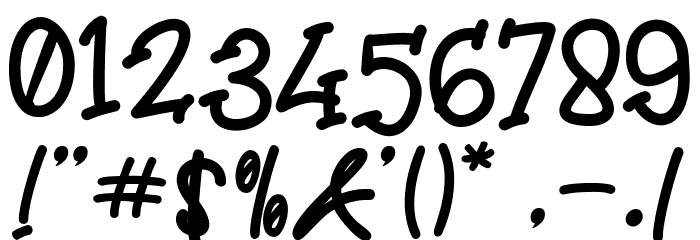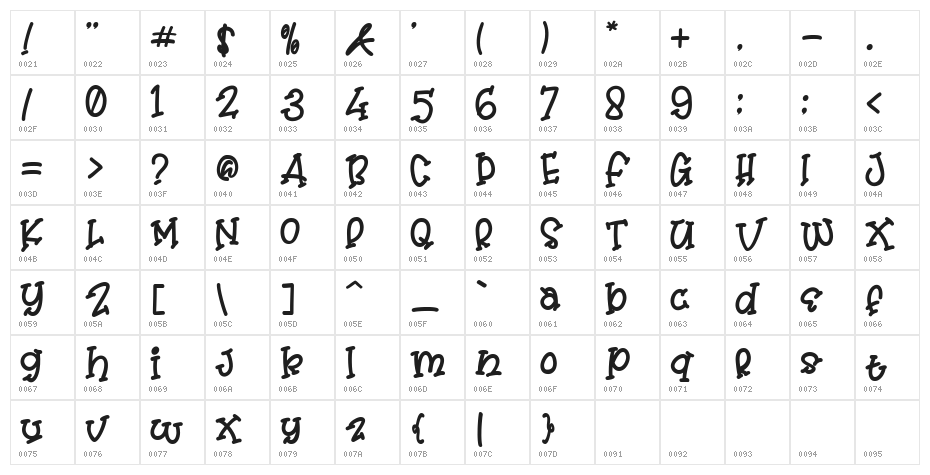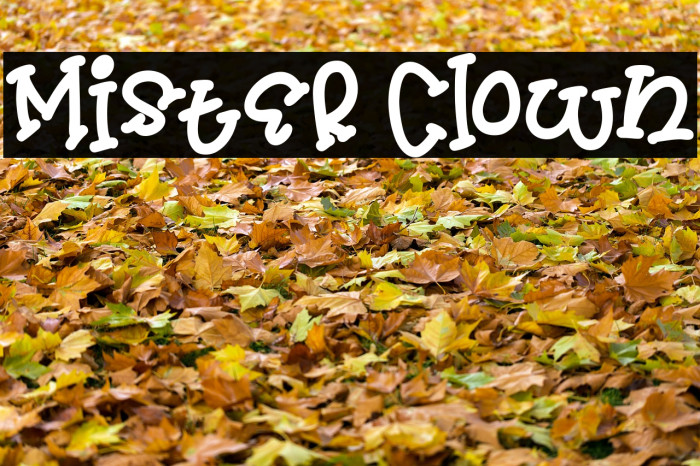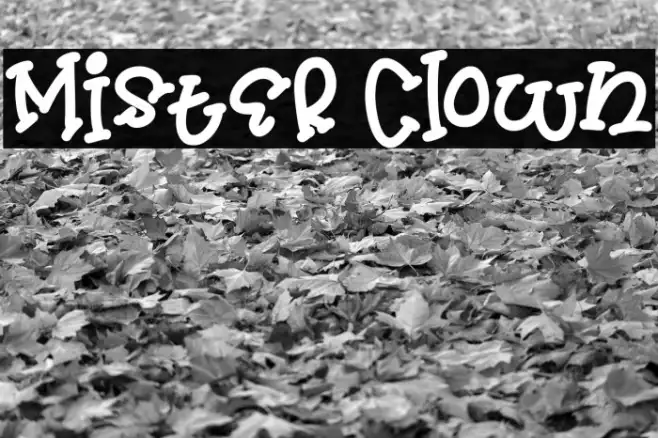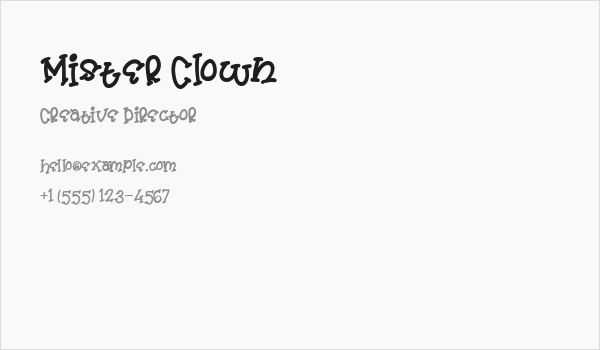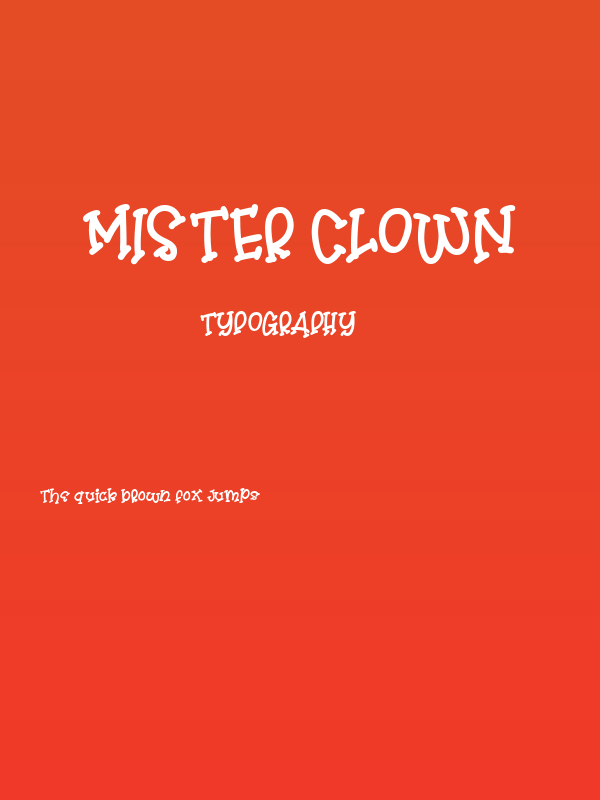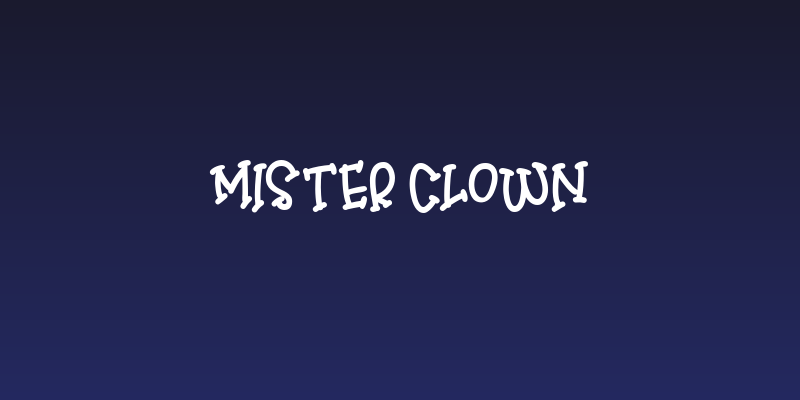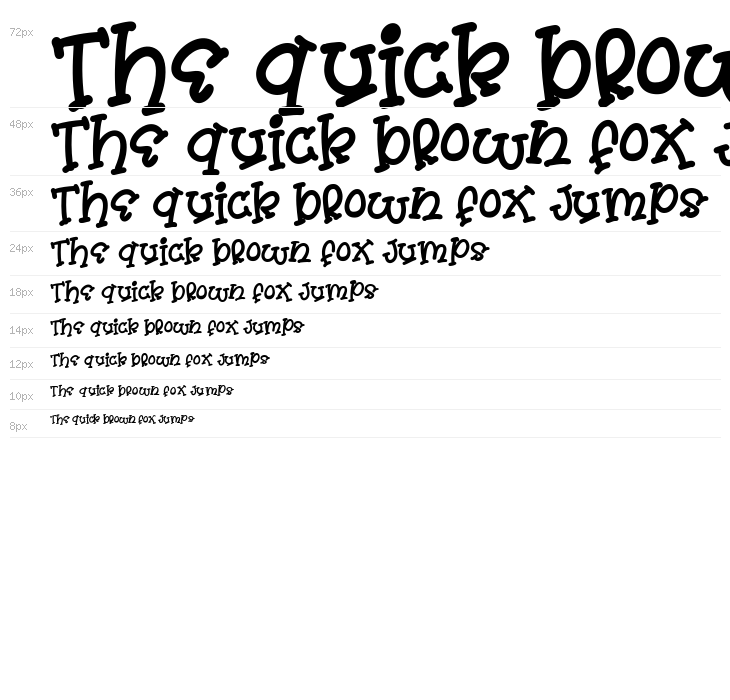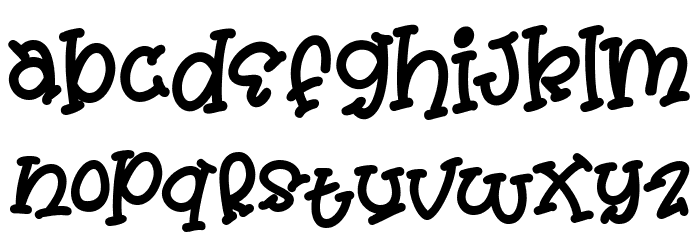
Mister Clown Font
Mister Clown Description
This playful and whimsical font features bold, rounded characters with a hand-drawn appearance. The letters have a bouncy, uneven baseline, giving them a lively and energetic feel. The strokes are thick and consistent, with subtle variations that add to the font's charm. The uppercase and lowercase letters maintain a cohesive style, while the numerals and special characters complement the overall design. This font exudes a sense of fun and creativity, making it ideal for projects that require a lighthearted and informal touch.
| Overall Style | Whimsical |
| Proposed Projects | Ideal for children's books, party invitations, playful branding, and creative posters. |